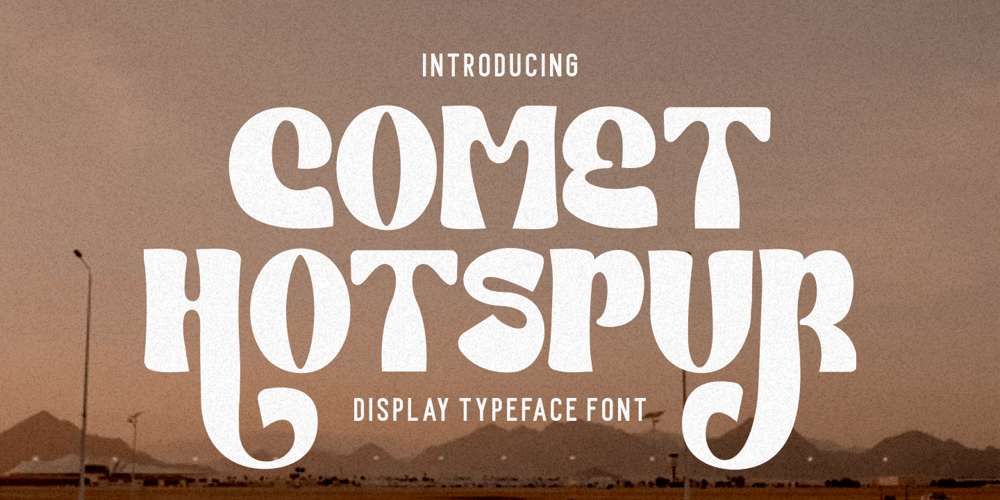
Comet Hotspur Font Family was designed by Putra Novembria Candra Kusuma and published by Putracetol. Comet Hotspur contains 1 styles and family package options. Comet Hotspur – Display Typeface Font is a bold and distinctive font that seamlessly blends modern and retro aesthetics. With its unique character shapes, bold strokes, and alternative letterforms, this font offers a captivating typographic solution. The font exudes a retro bold and vintage vibe while maintaining a fresh and contemporary edge. Whether you’re creating logos, branding materials, titles, posters, film graphics, cards, quotes, or landing page titles.